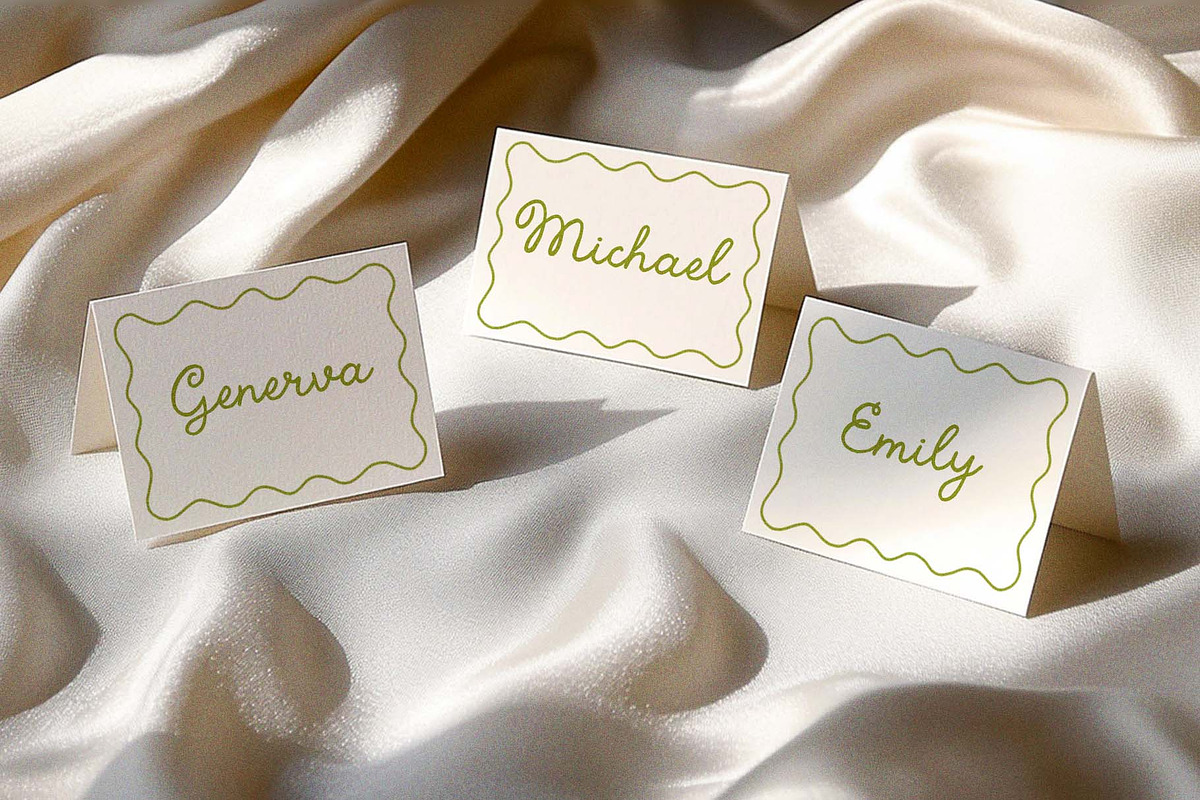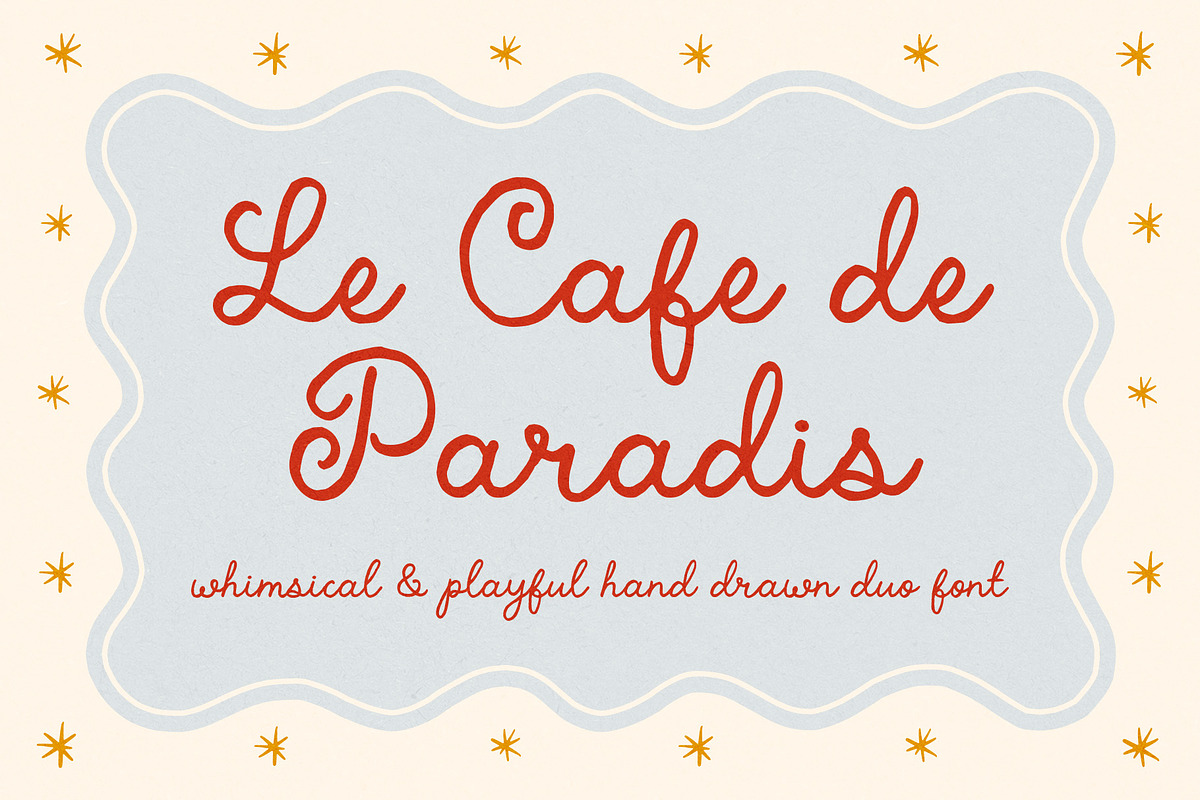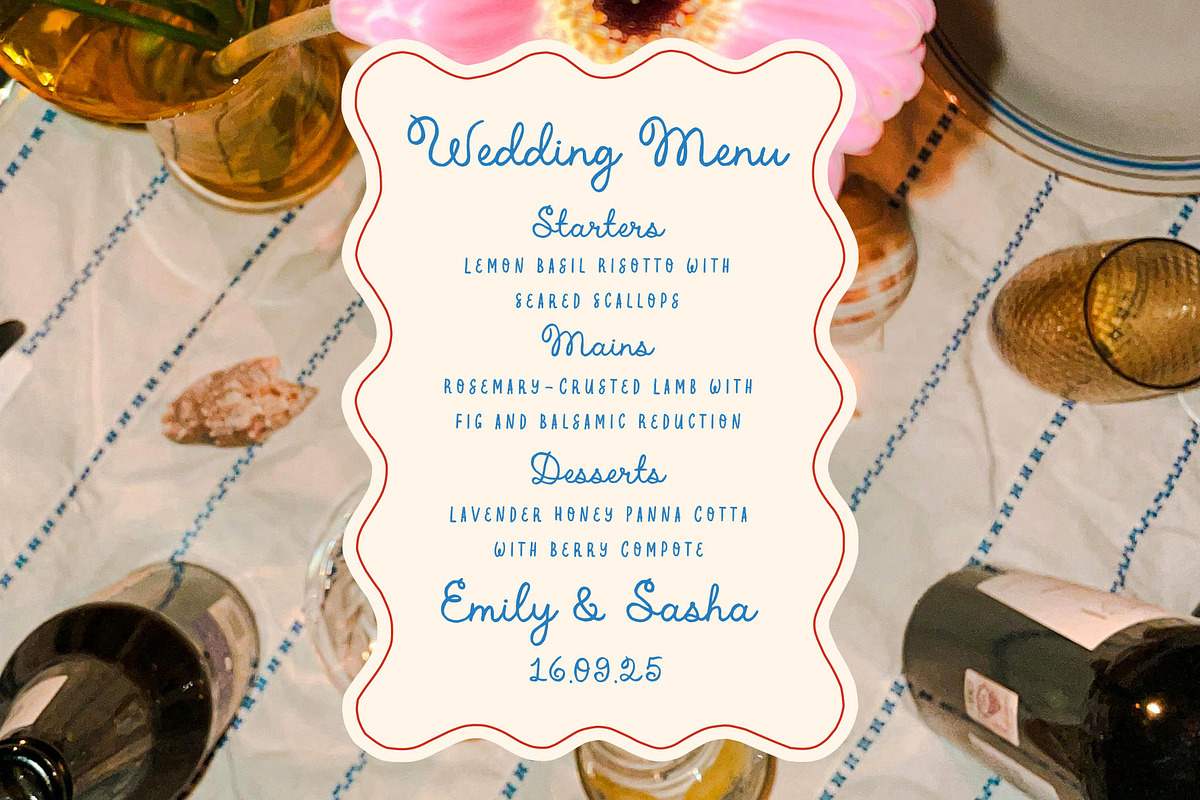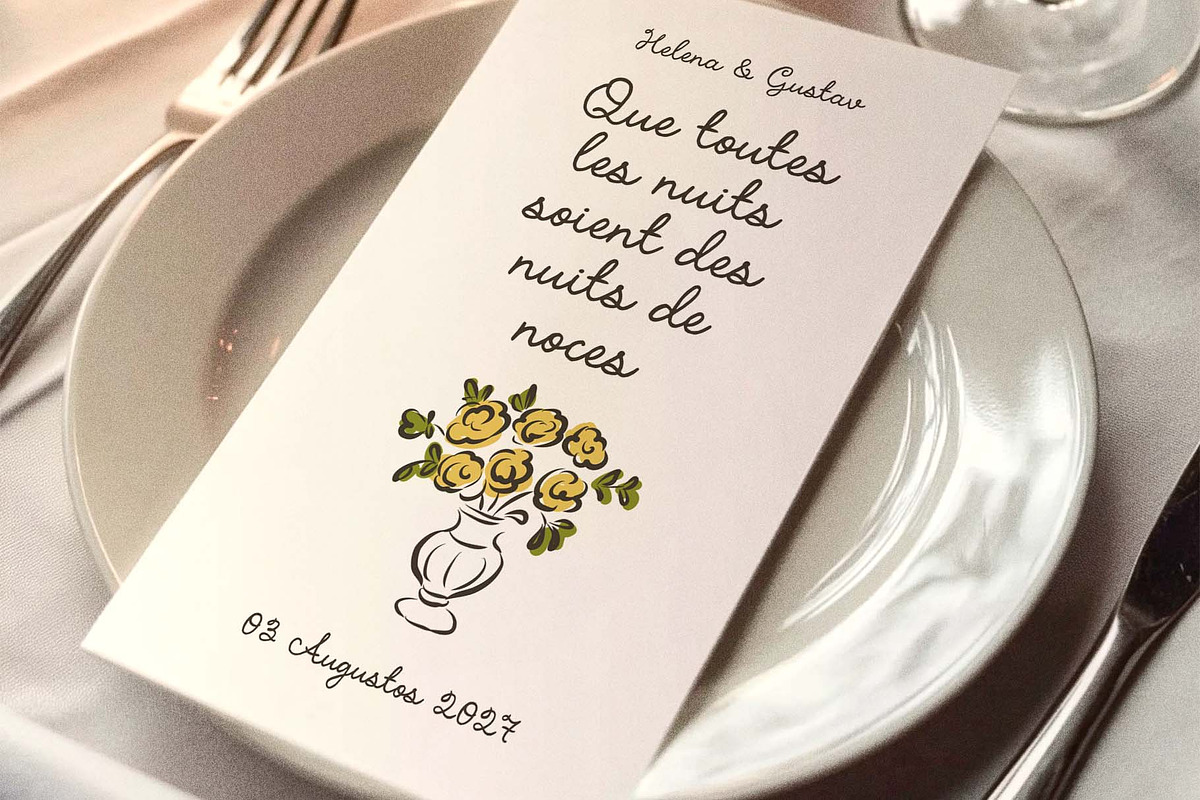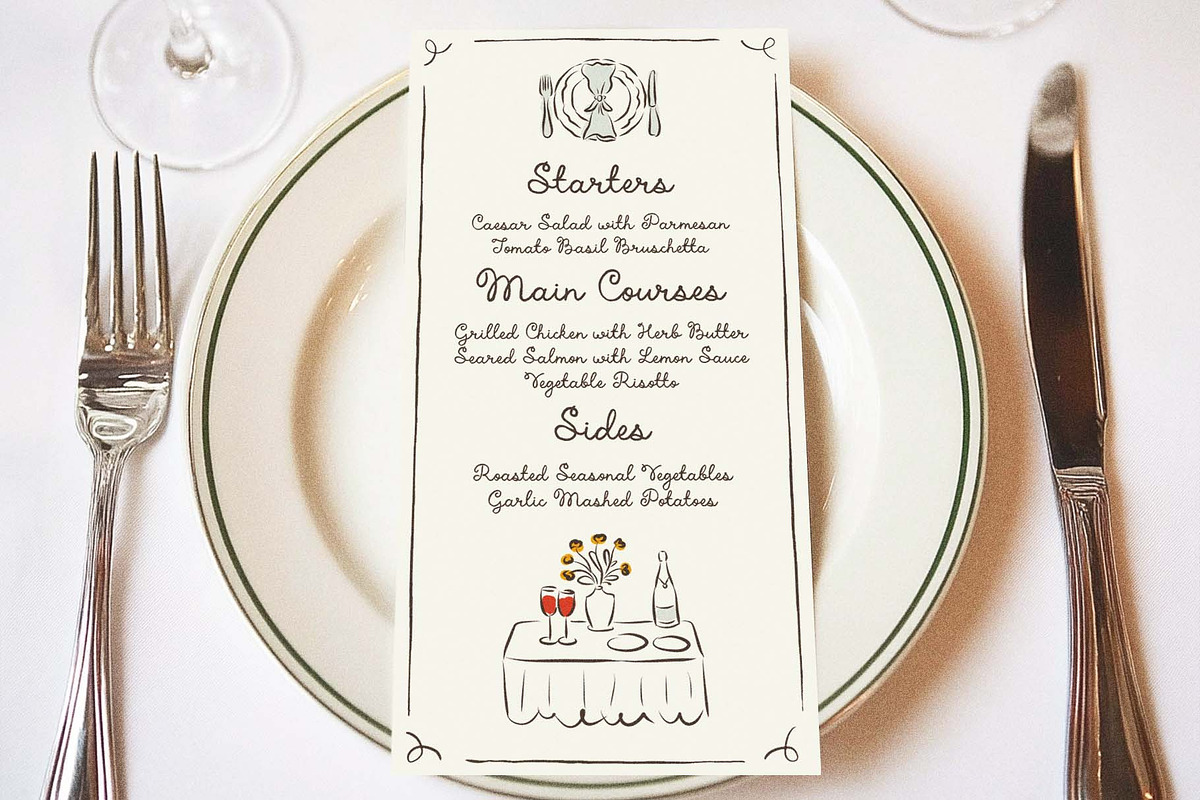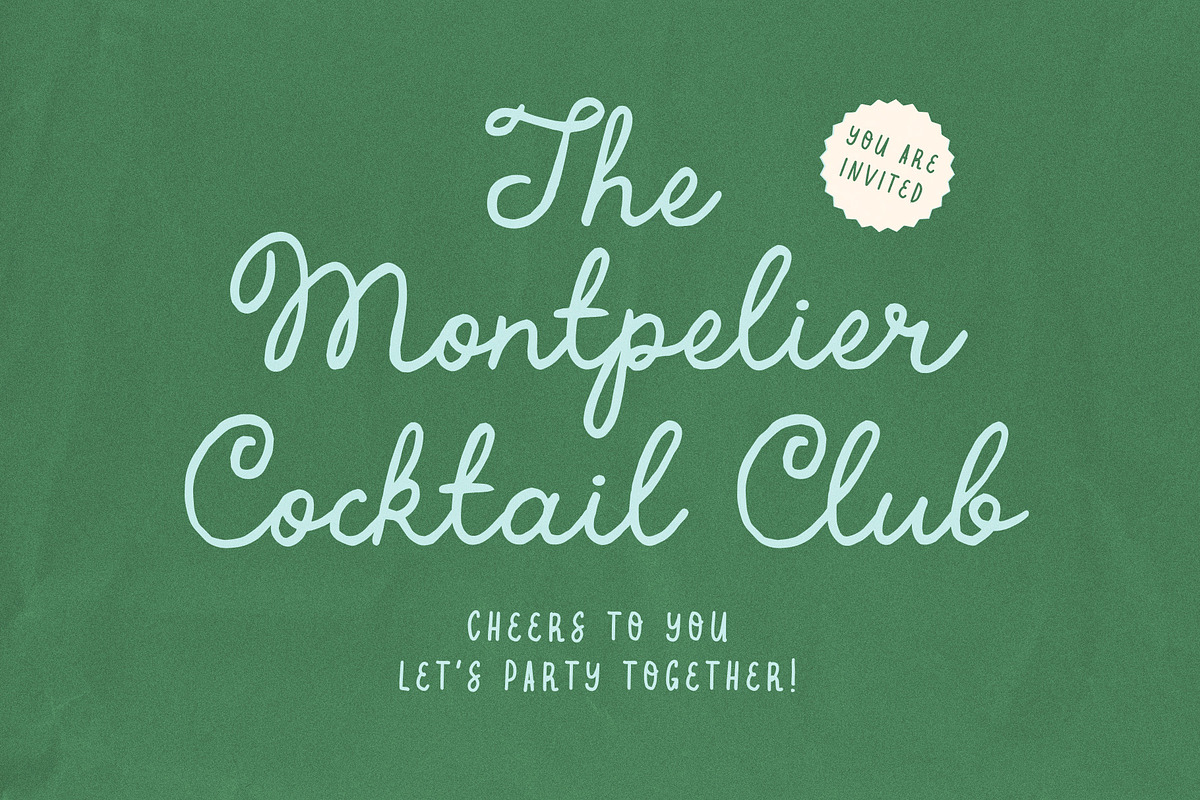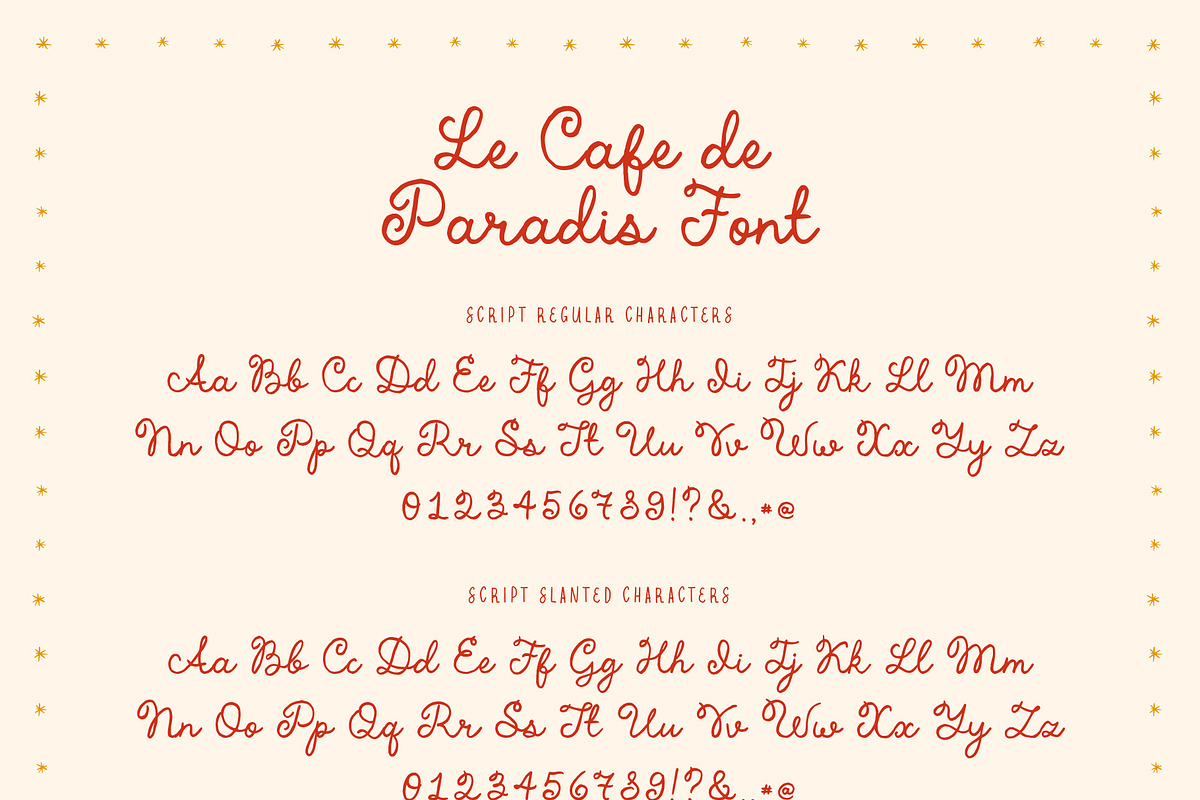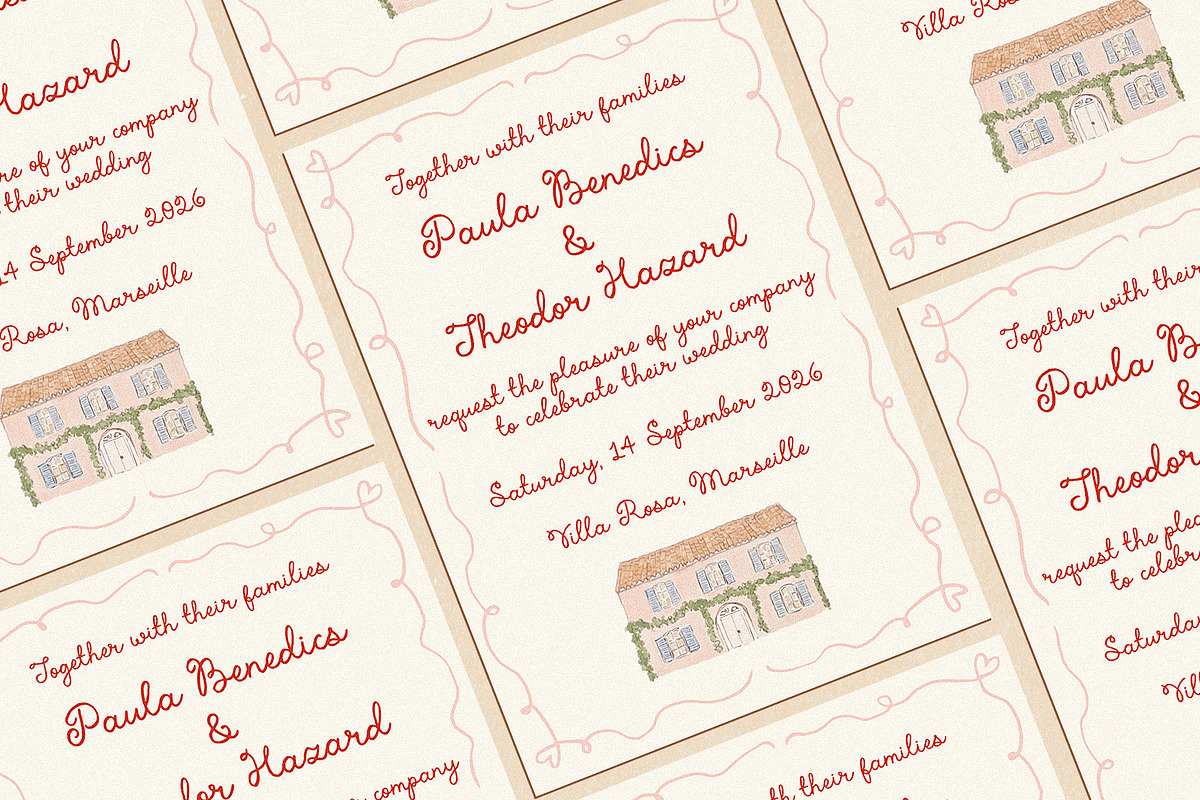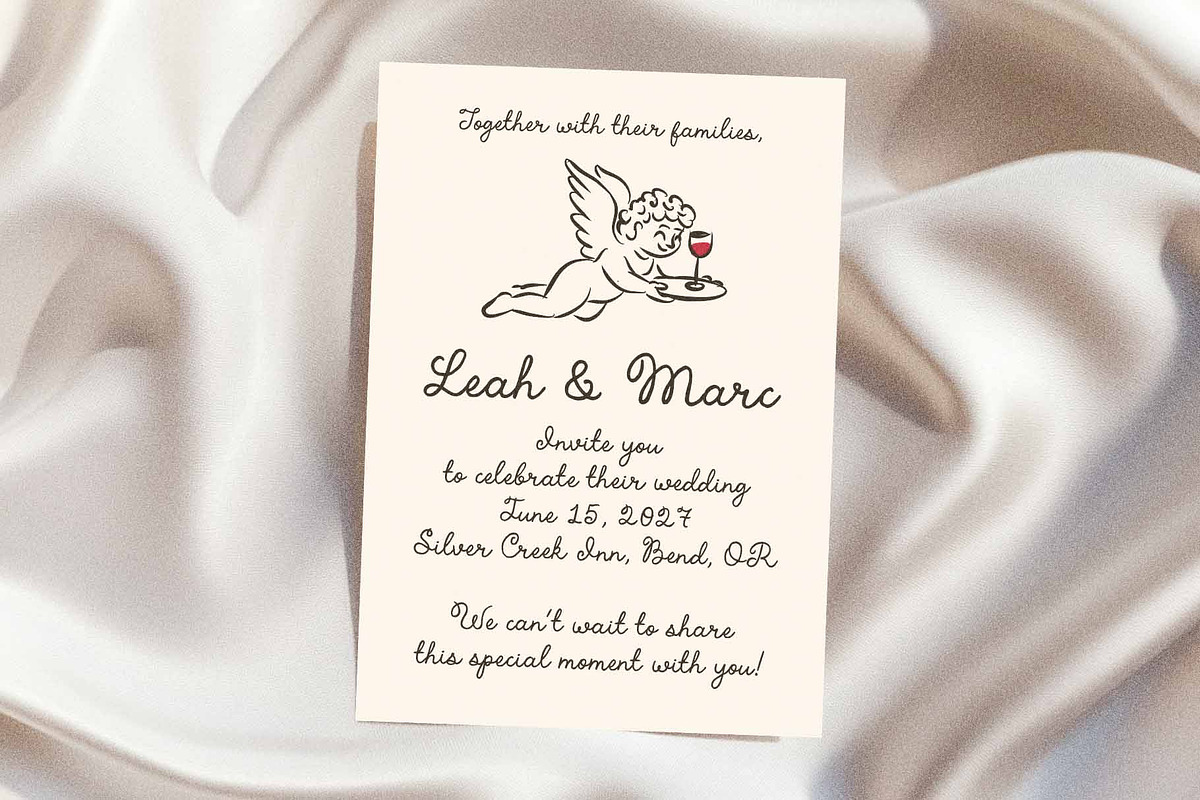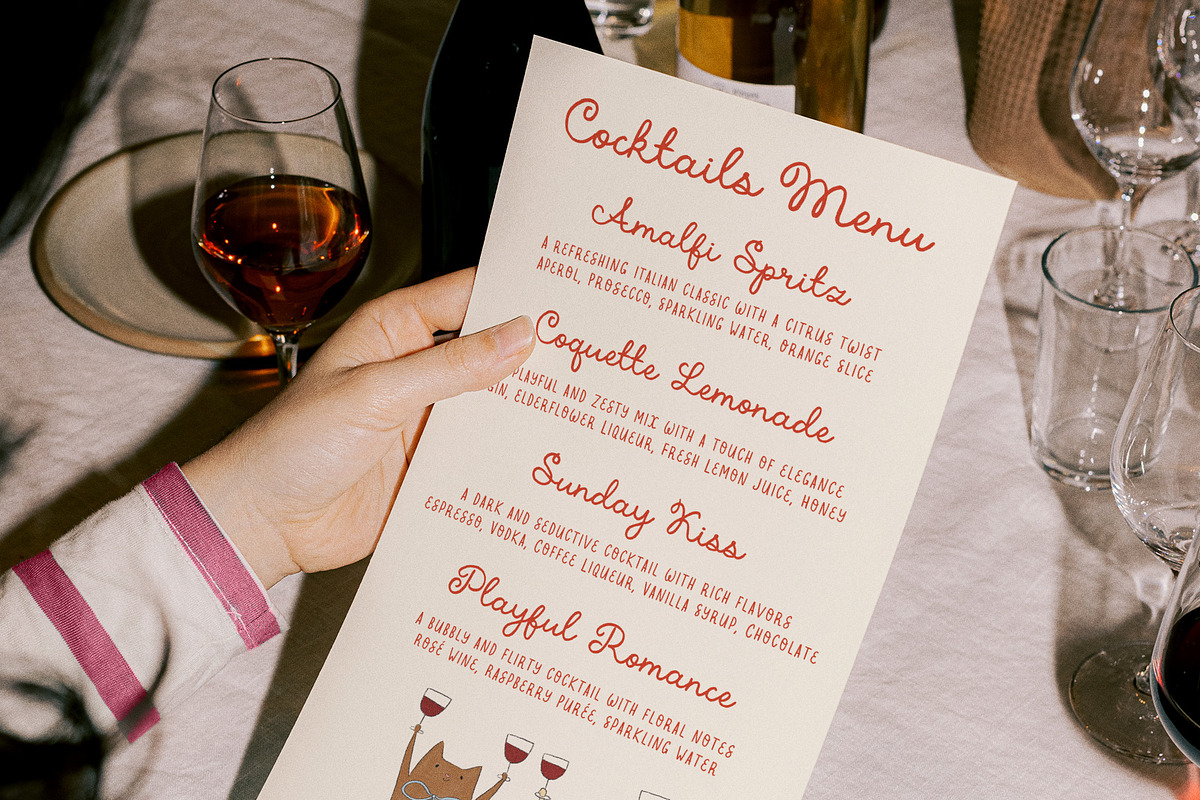
Chic Handwritten Script Font Duo
Le Cafe de Paradis is a playful script font duo with swirly curls and a touch of effortless French charm. It’s elegant but fun, perfect for wedding menus, quirky invitations, and creative branding. The mix of flowing script and unique details makes every design feel special, adding a bit of personality and warmth.